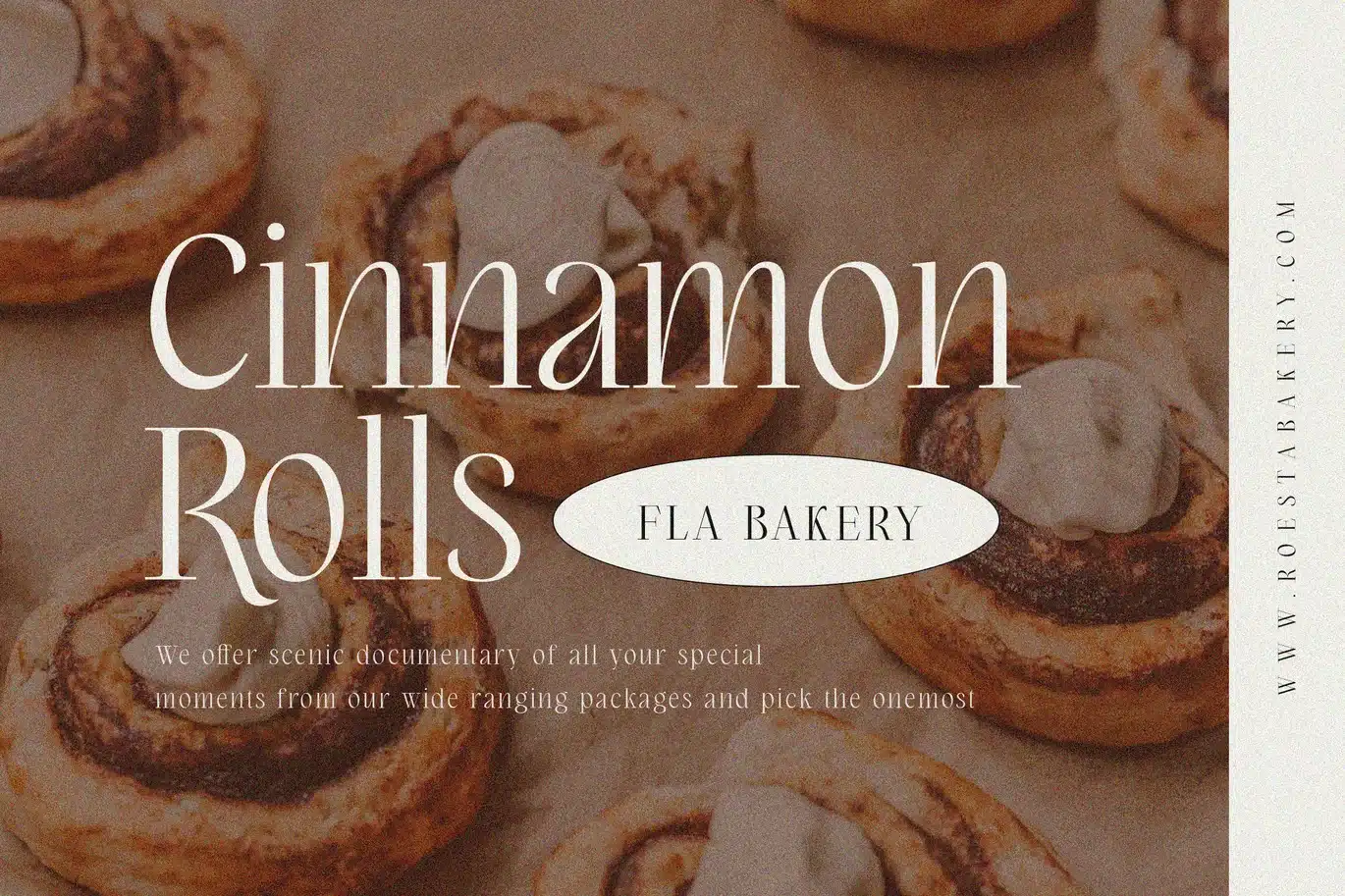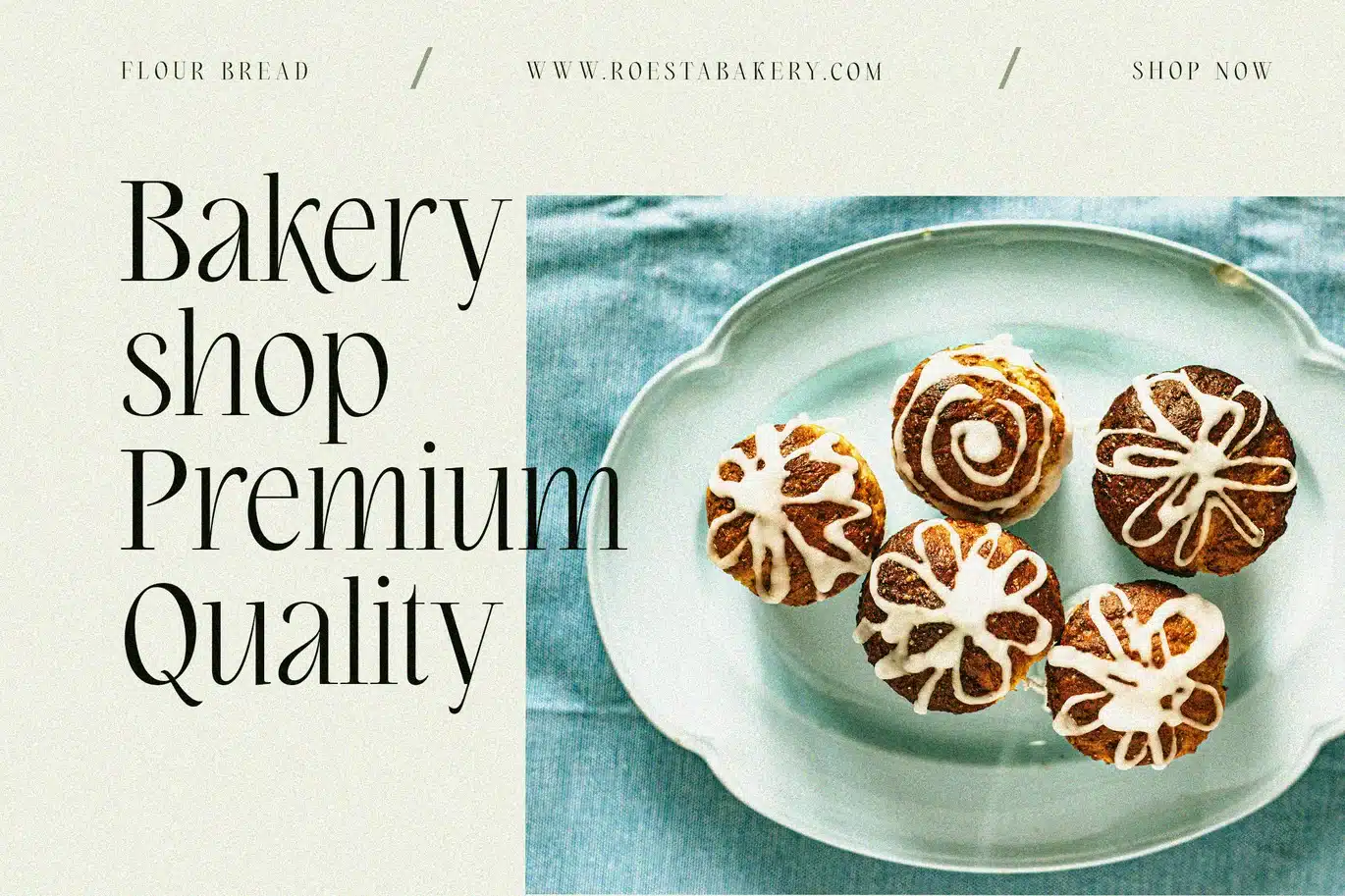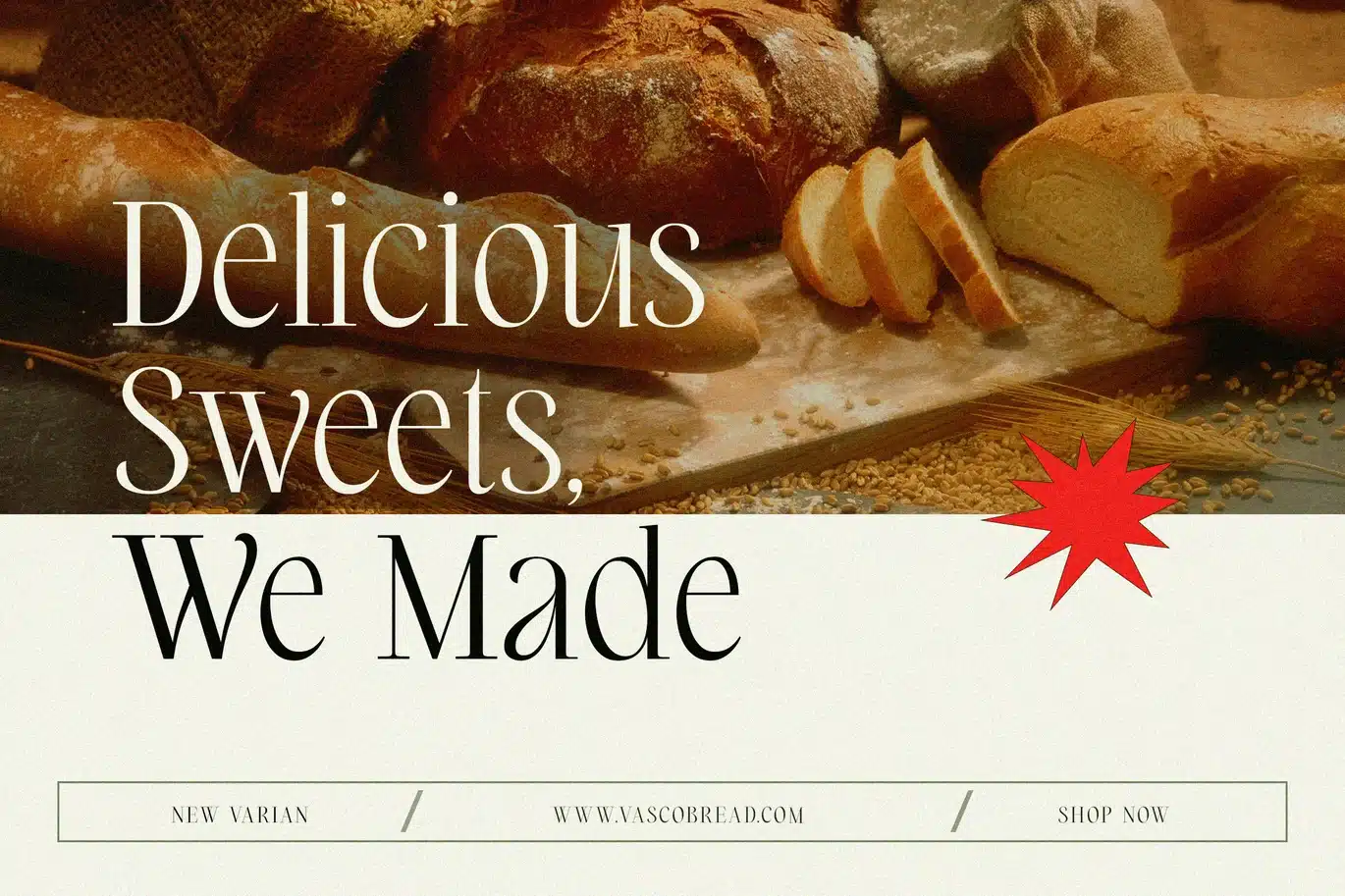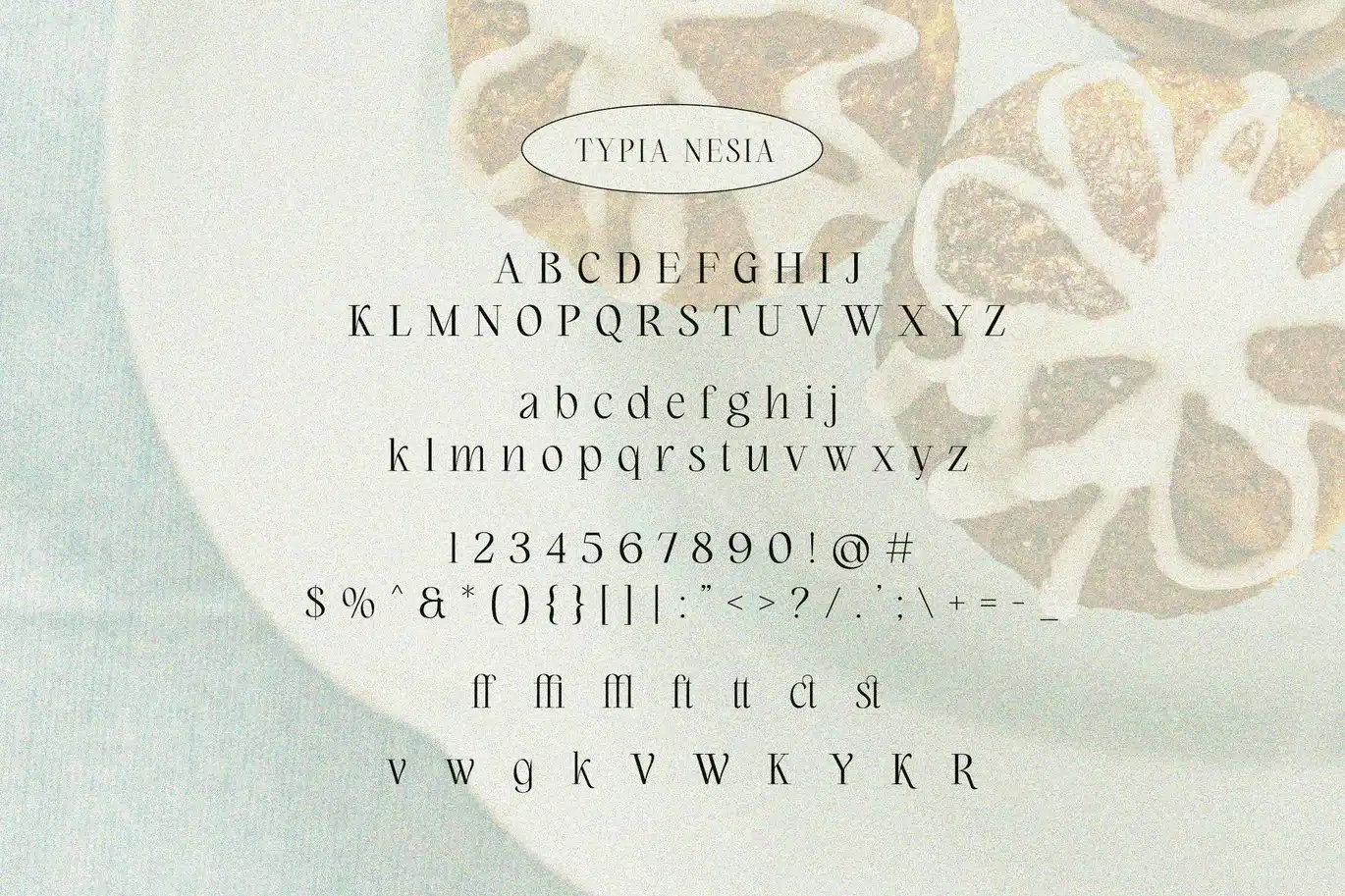
Brandcake – Classy and Delighted Condensed Serif Font
Brandcake Elegant Serif font is perfect for your up coming projects. Such as luxury logo and branding, classy editorial design, woman magazine, cosmetic brand, fashion promotional, art gallery branding, museum, historical of architectural, boutique branding, stationery design, blog design, modern advertising design, card invitation, art quote, home decor, book/cover title, special events and any more.
Typia Nesia Std